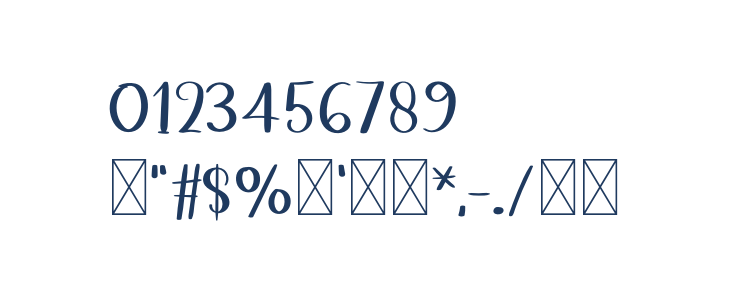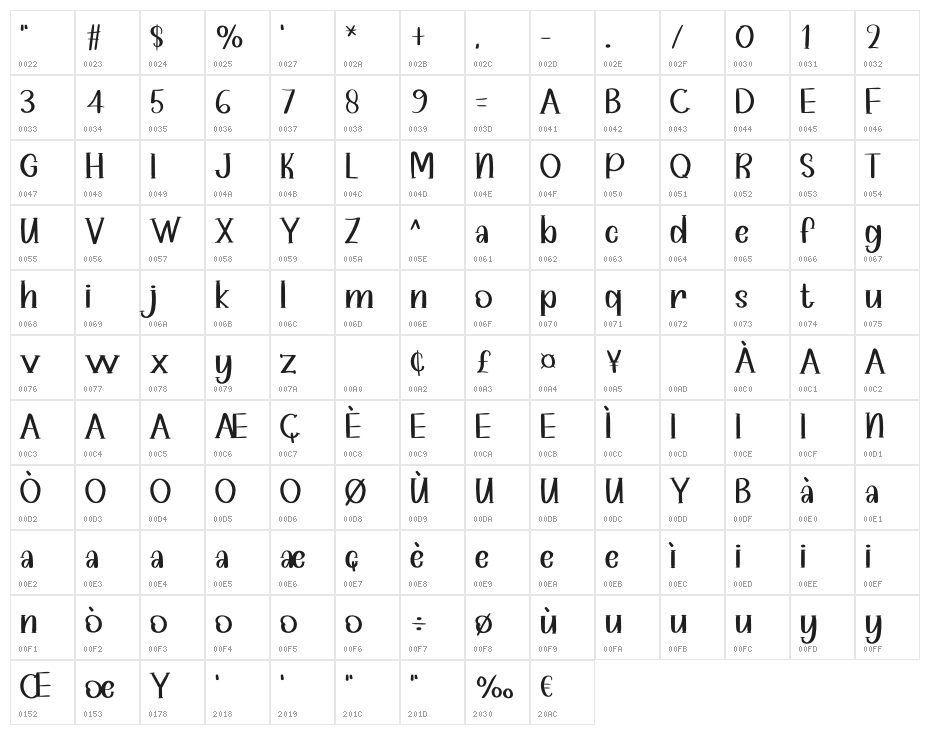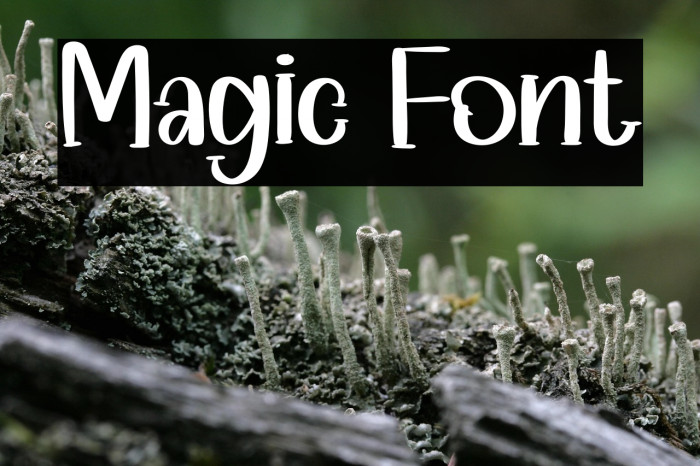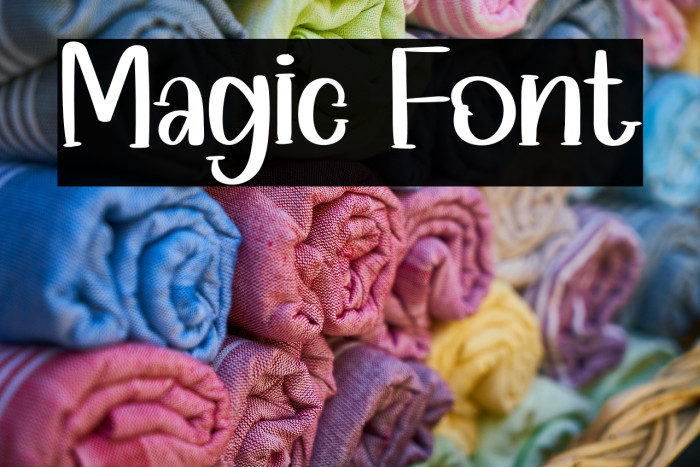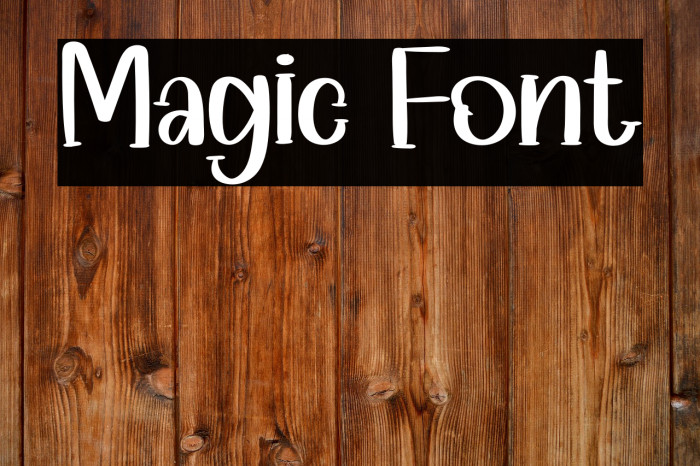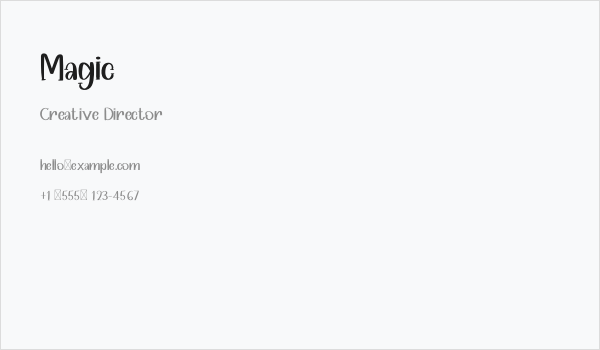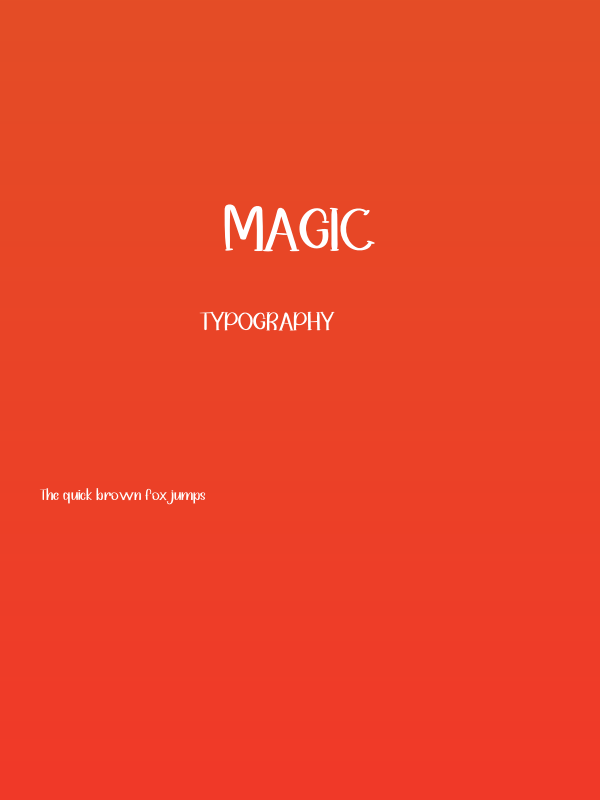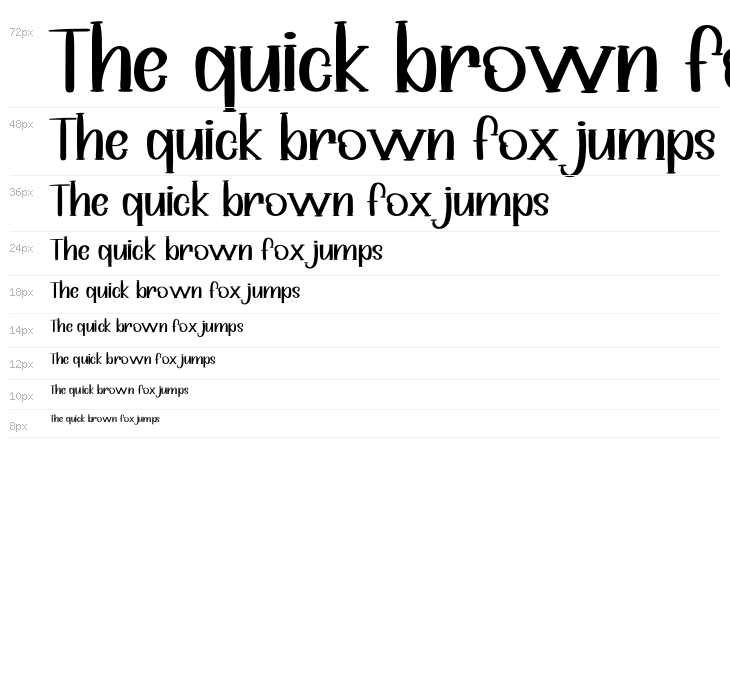
Magic Font
Magic Description
This font presents a whimsical and playful style, characterized by its unique blend of both serif and script elements. The uppercase letters exhibit a bold, slightly condensed form with subtle serifs, giving them a classic yet modern appeal. The lowercase letters transition into a more fluid, script-like style, adding a touch of elegance and creativity. Numbers maintain the boldness of the uppercase letters, ensuring legibility and consistency. Special characters are designed with the same playful flair, making them suitable for a variety of creative applications. The overall design is versatile, combining traditional and contemporary elements, making it ideal for projects that require a touch of sophistication and fun.
| Proposed Projects | Ideal for branding, invitations, greeting cards, and creative headlines. |